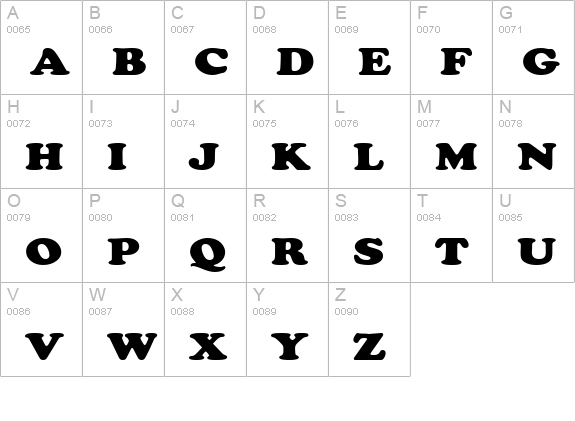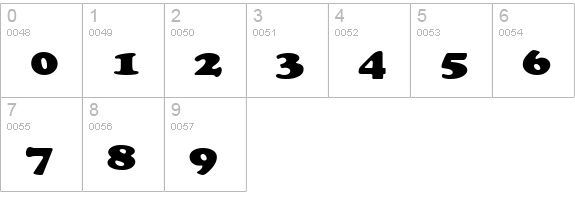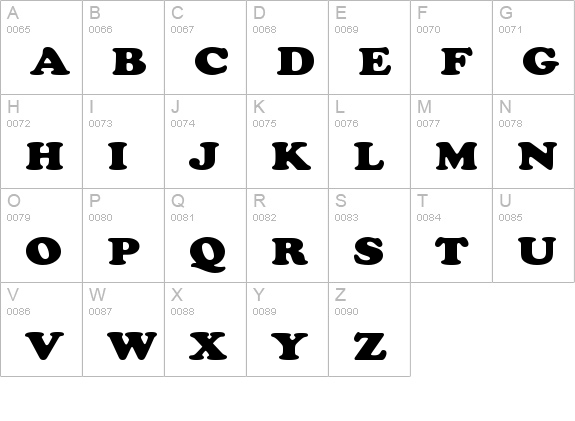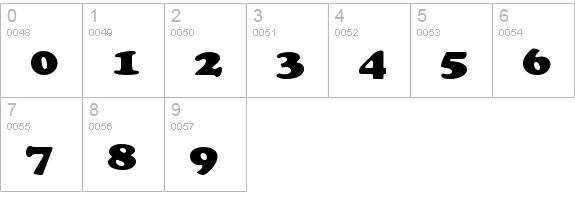
MarshmallowExtended Normal Font Details
MarshmallowExtended Normal is the standard, neutral variant in the MarshmallowExtended typeface family \xE2\x80\x94 well suited to general body text, paragraphs, and standard typographic work.
Introducing MarshmallowExtended Normal font, a beautifully crafted typeface that exudes elegance and sophistication. With its clean lines and balanced proportions, this font is perfect for adding a touch of refinement to any design project. MarshmallowExtended Normal font offers a wide range of versatility, making it suitable for various purposes. Whether you're creating captivating headlines, designing eye-catching logos, or crafting professional-looking presentations, this font will effortlessly elevate your work to new heights. What sets MarshmallowExtended Normal font apart is its timeless appeal and effortless legibility. Each character is meticulously designed with attention to detail, ensuring a seamless reading experience for your audience. Its smooth curves and precise letterforms create a harmonious rhythm that captivates the eye, making it a truly remarkable choice for both print and digital applications. One of the best things about MarshmallowExtended Normal font is that it is available for free! Yes, you read that right. This extraordinary font can be freely downloaded at FontsMarket.com, a reputable online platform for high-quality fonts. Now, you can enhance your designs without breaking the bank. So, why wait? Embrace the elegance and versatility of MarshmallowExtended Normal font and elevate your design projects to the next level. Download it for free today at FontsMarket.com and unlock the possibilities of this remarkable typeface.